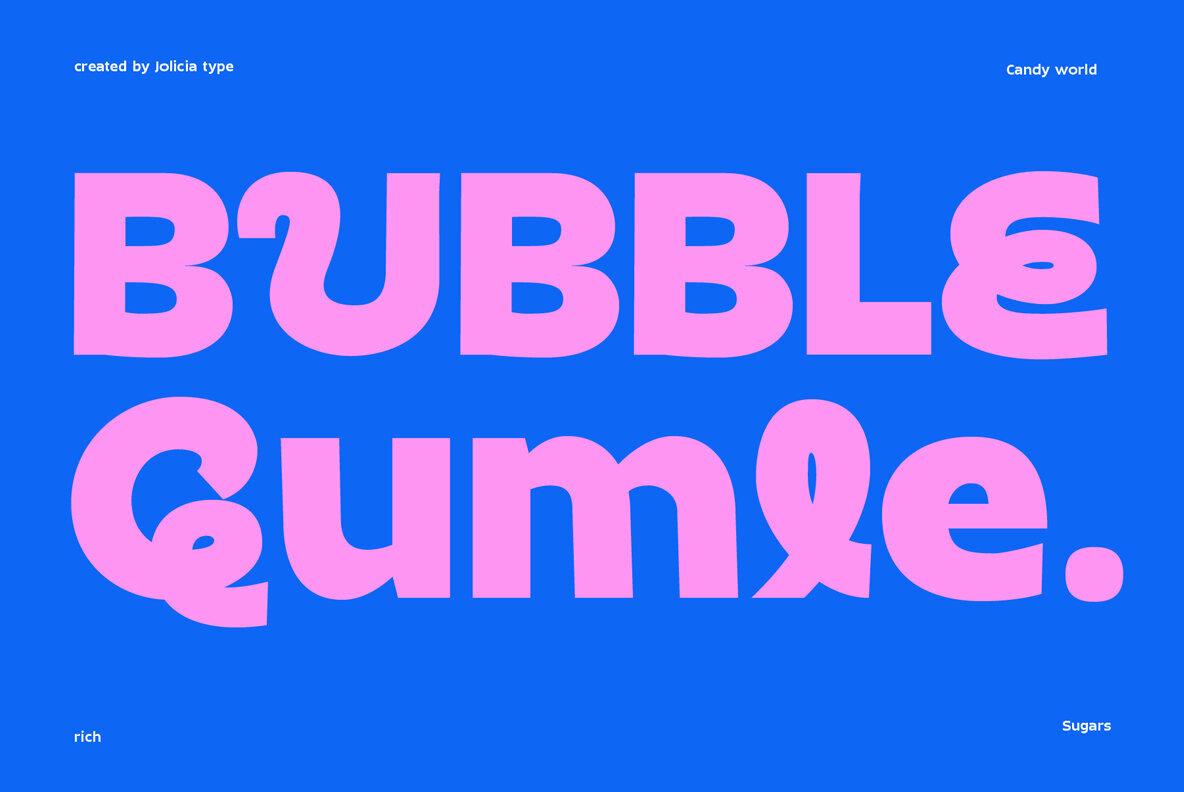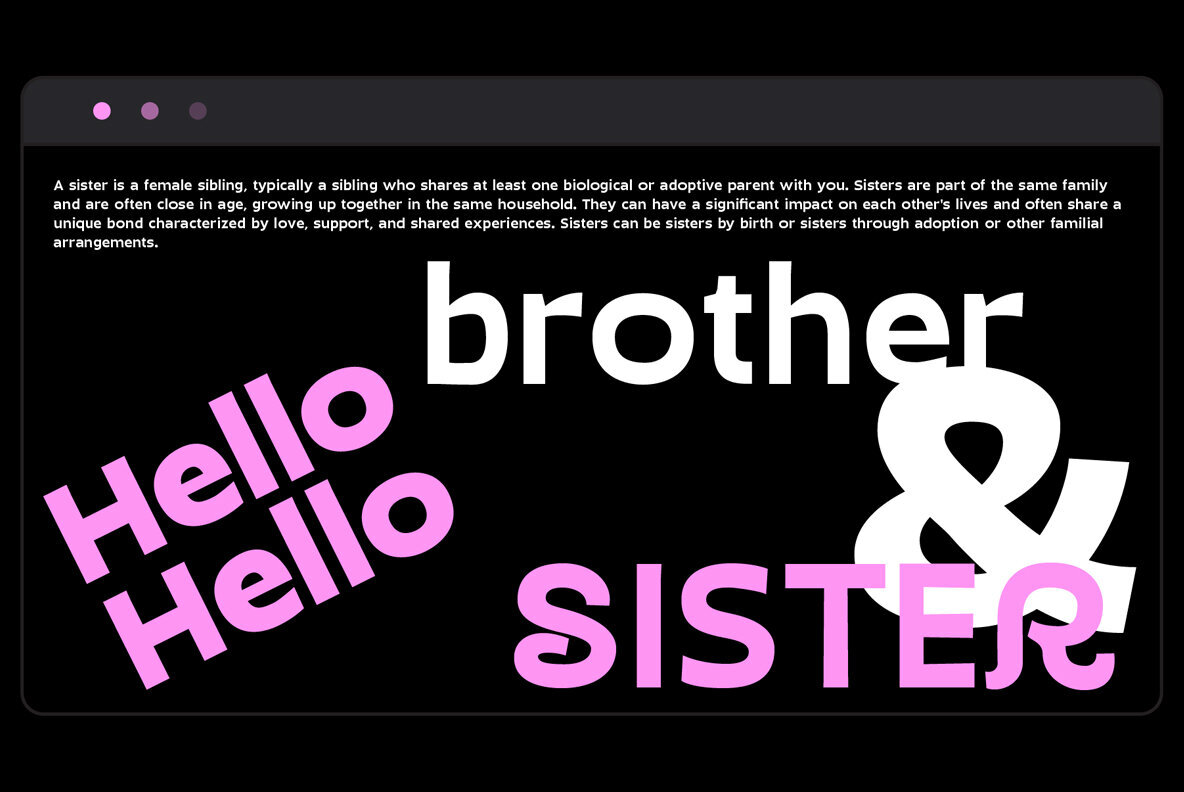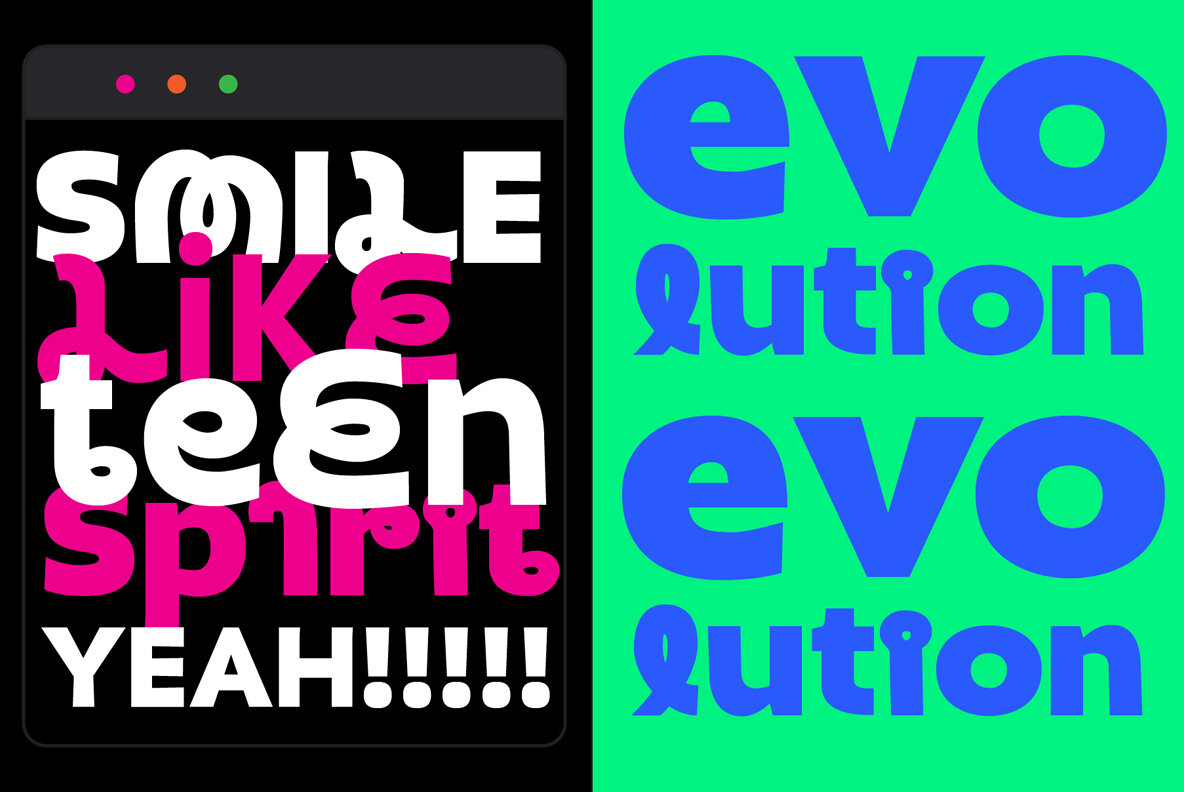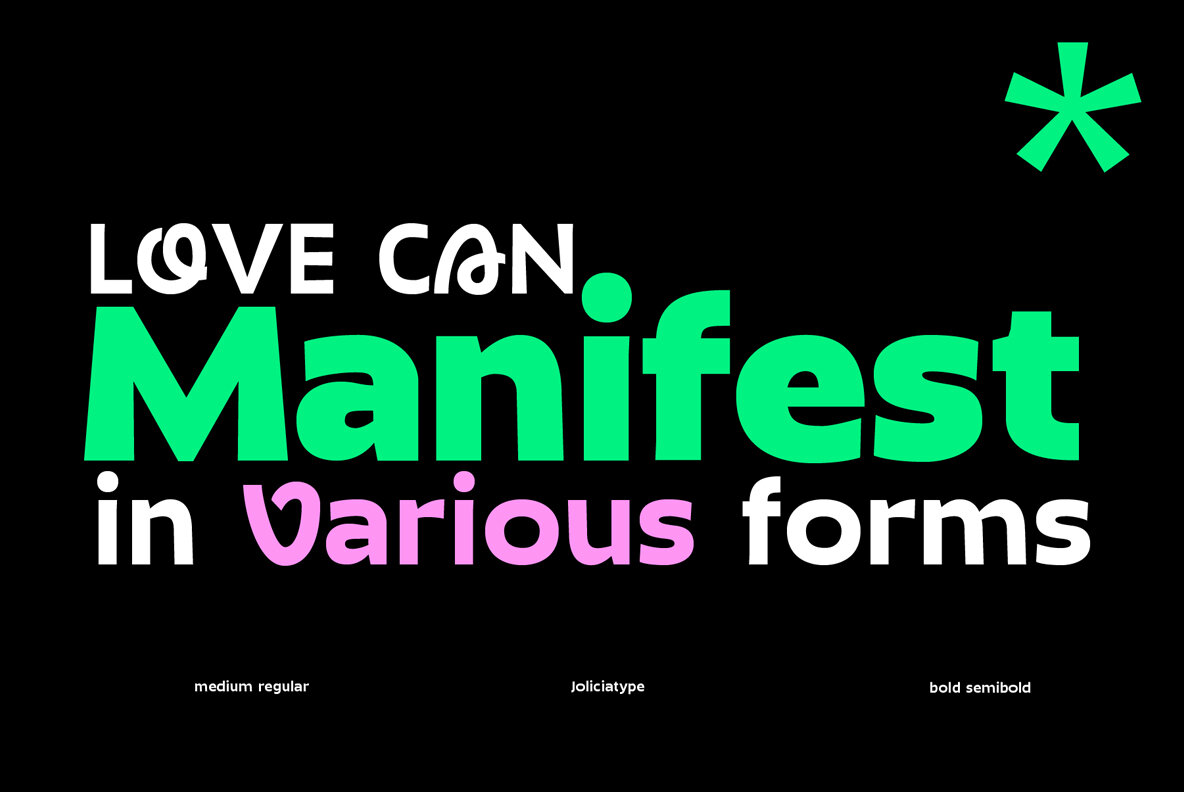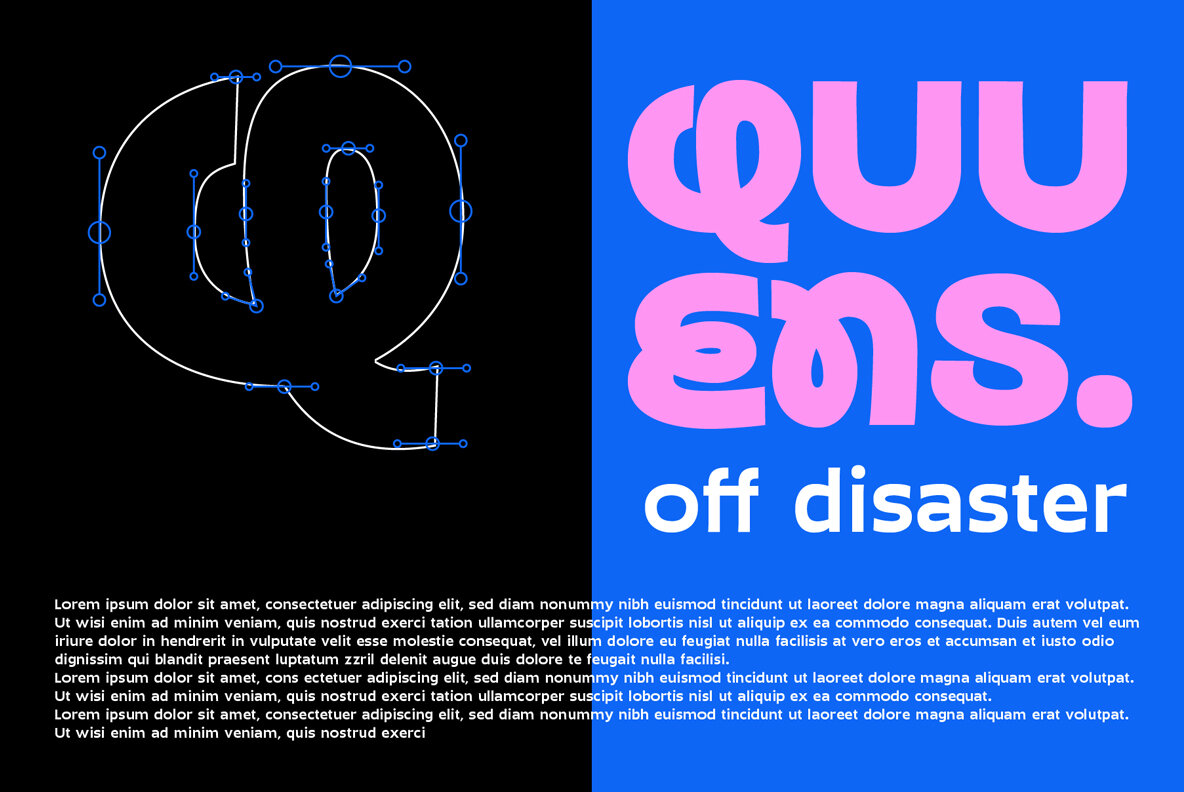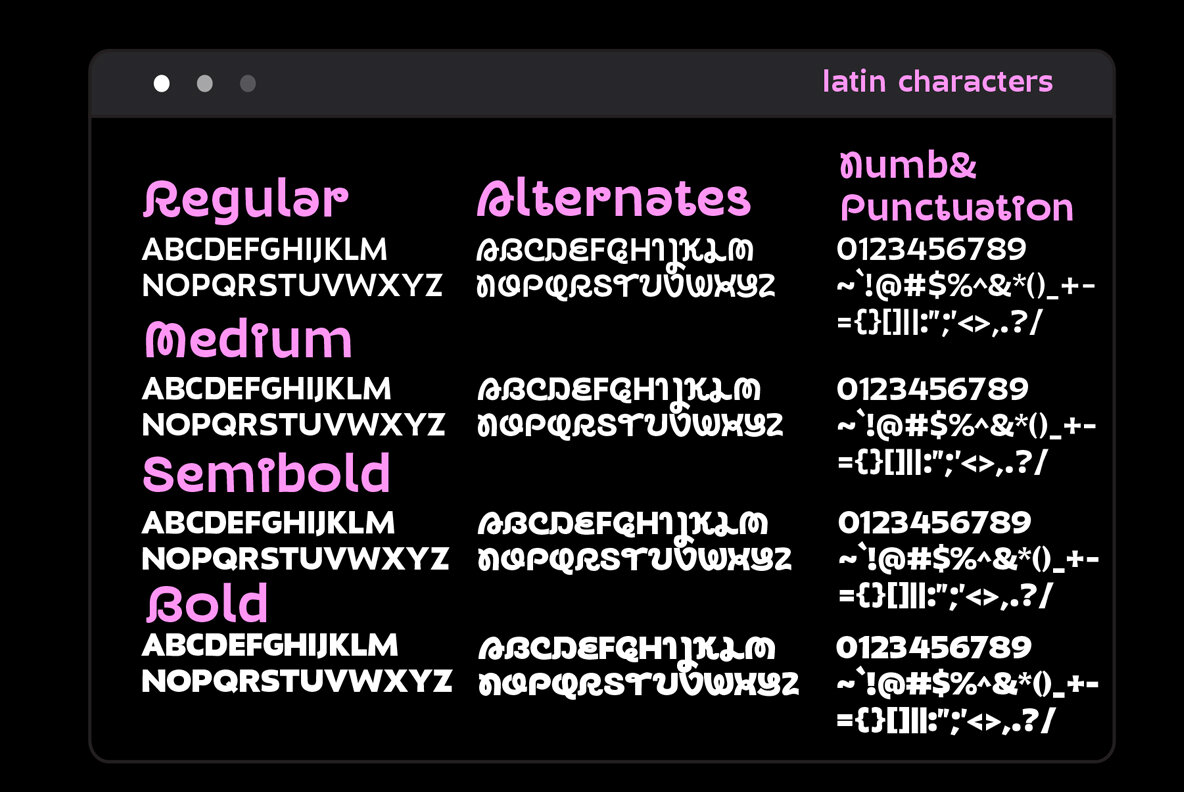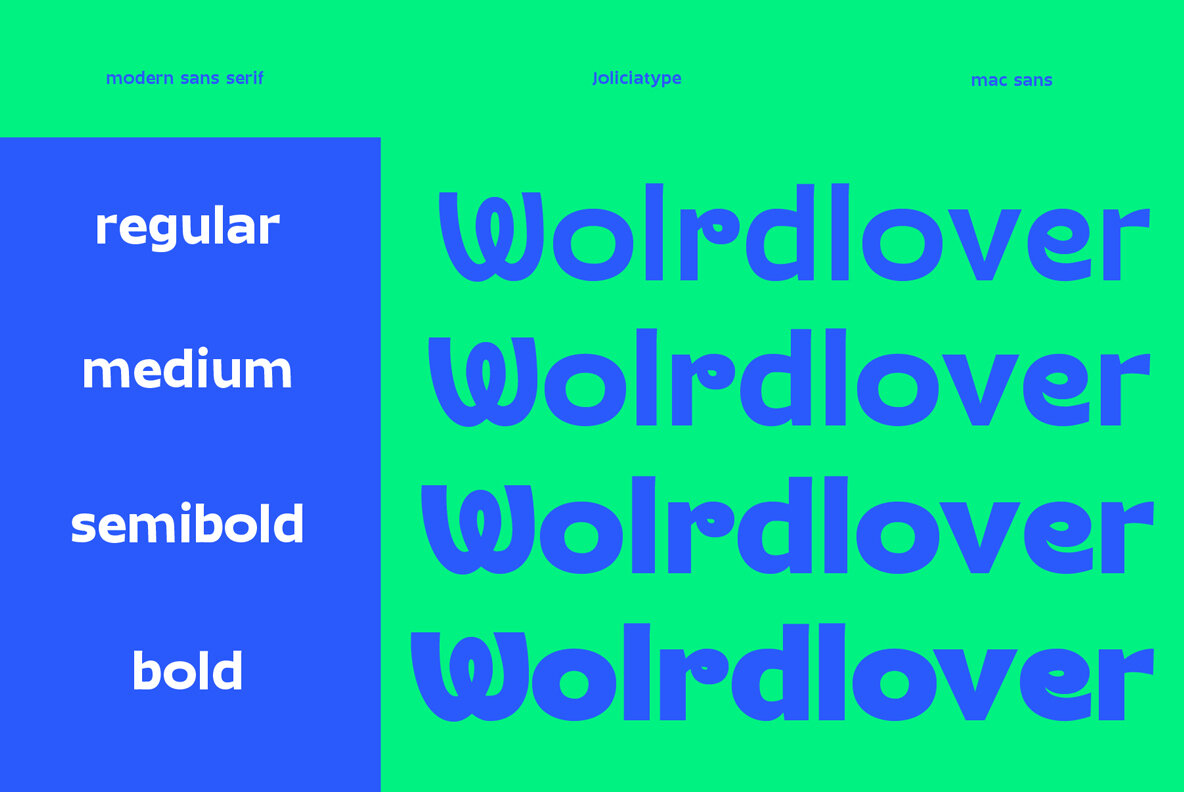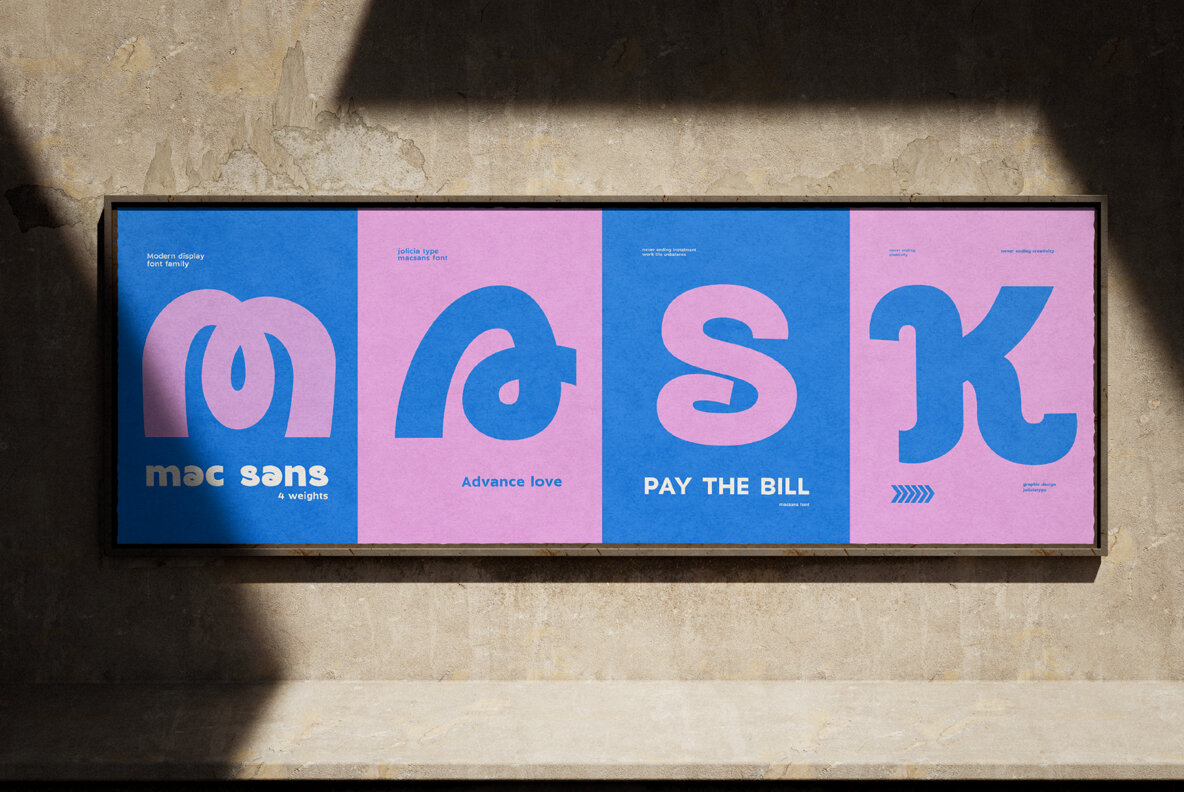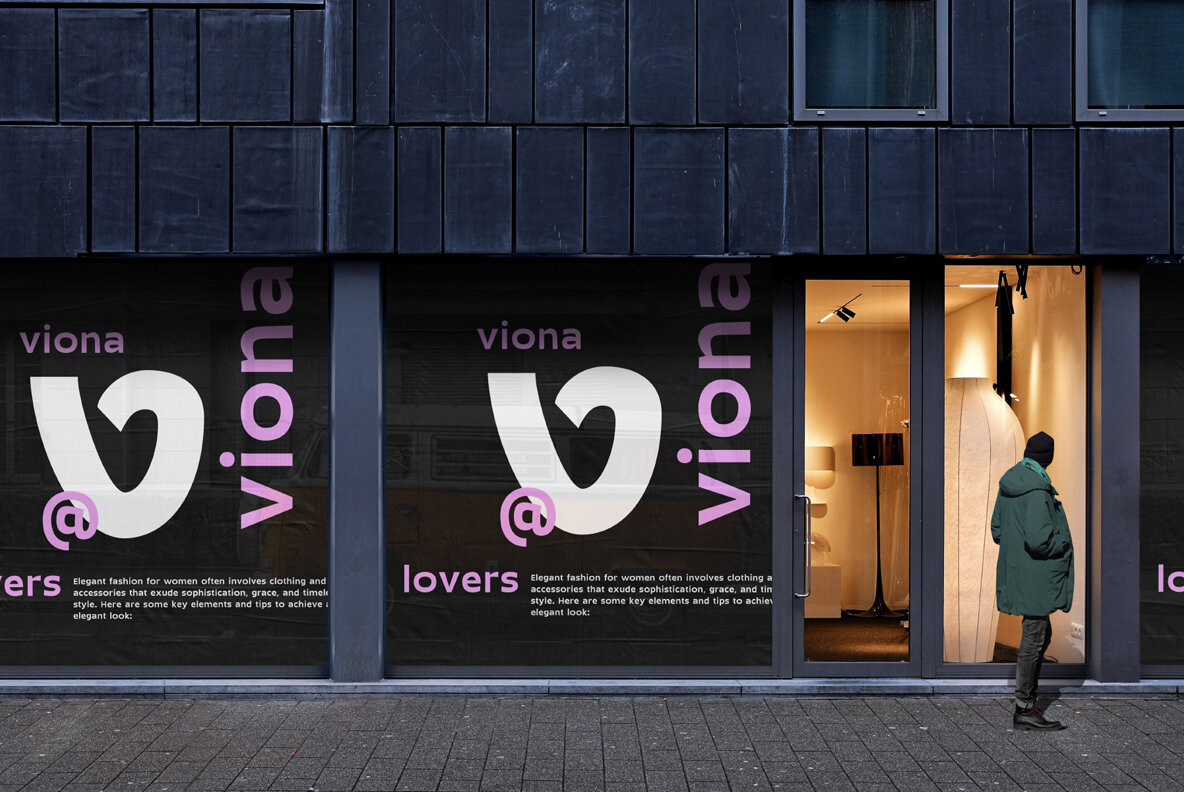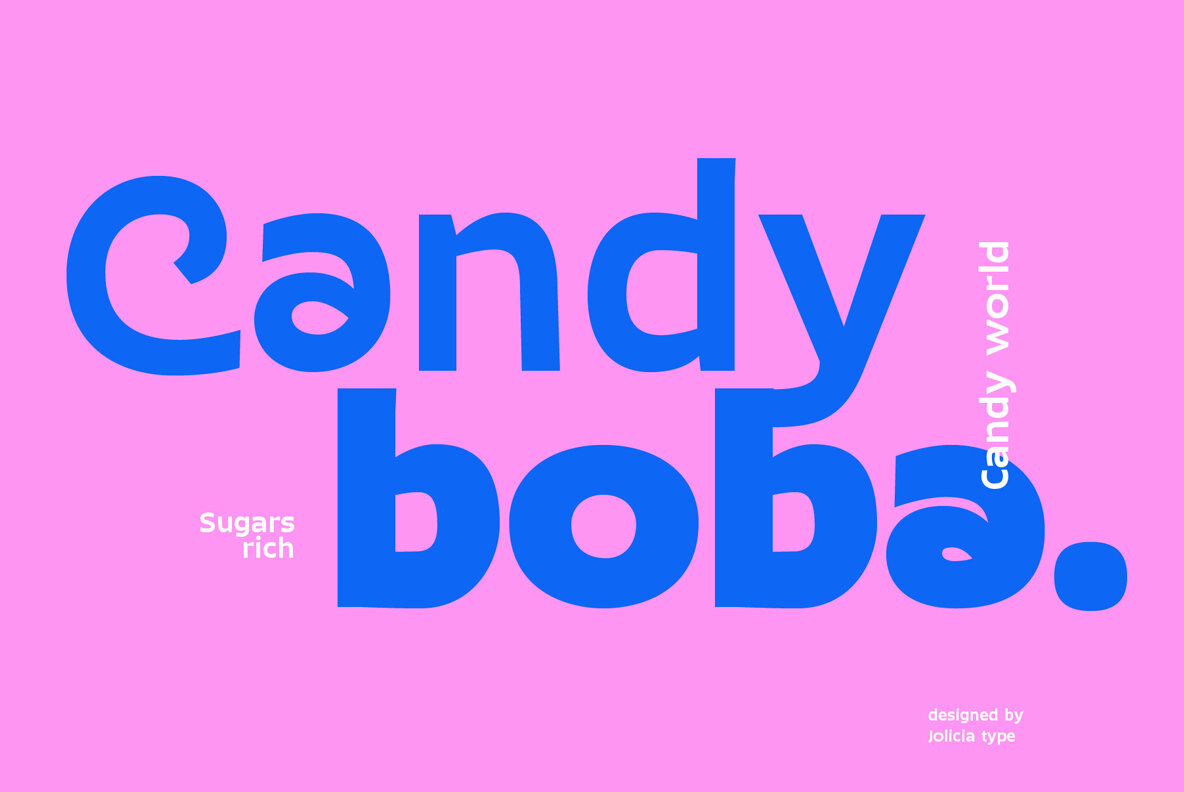
Mac Sans Font
Elevate your design projects with Mac Sans, a modern sans serif font that effortlessly combines a strong, authoritative presence with a distinctive character that sets it apart from the crowd. Key Features:Introducing Mac Sans: The Perfect Blend of Firmness and Uniqueness